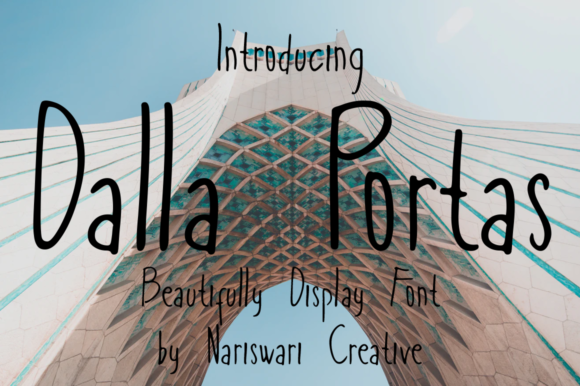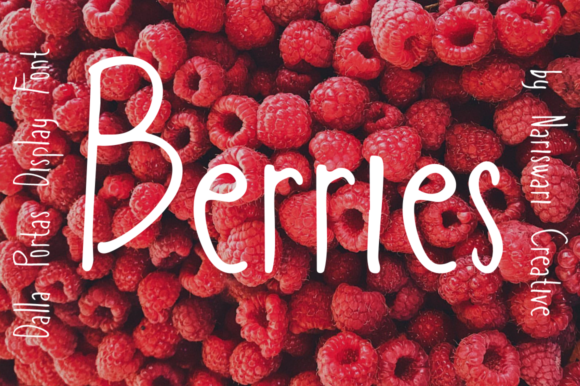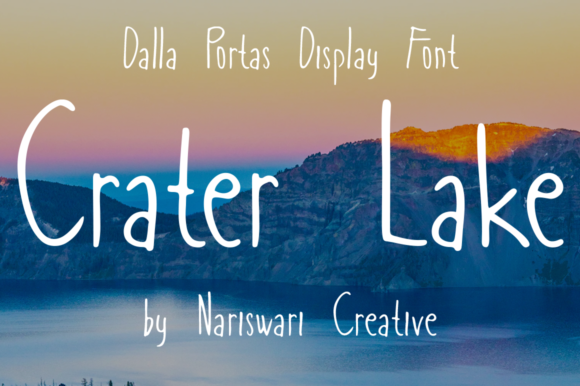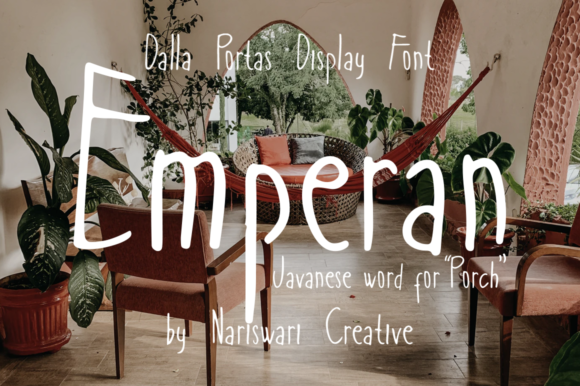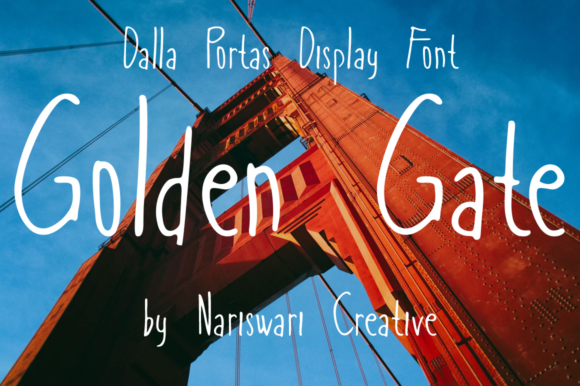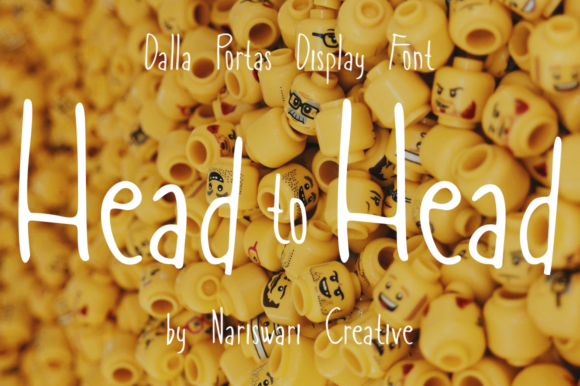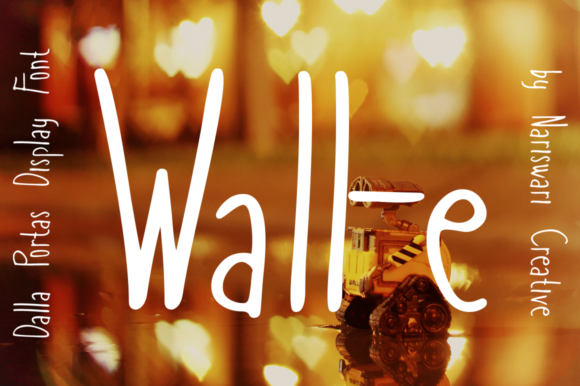
Dalla Portas Font
Dalla Portas is modern, tall and quirky handwritten font. Its simple and unique style makes this font incredibly fit for a wide range of designs. Add it to your most creative ideas and notice how it makes them stand out!